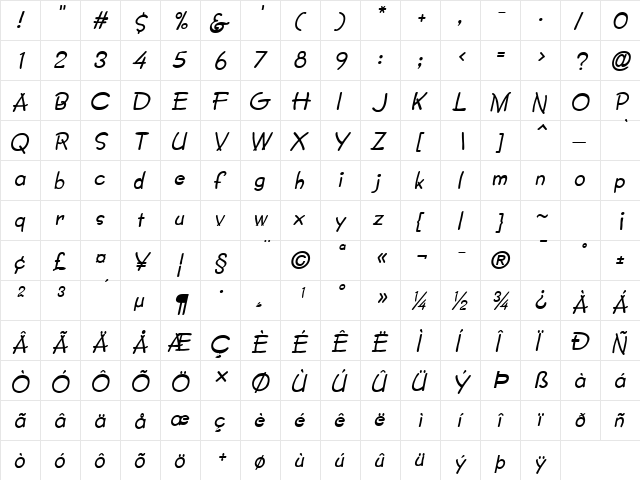
Crayon Italic
Design Context for Crayon Typeface
Crayon is a composed and adaptable typeface that performs quietly and consistently across a wide range of design contexts. The dynamic lean of this cut emphasises speed and emphasis in any layout.
Pro Tip: Try Crayon for annotation and caption copy alongside an upright companion — the contrast in angle creates a dynamic but ordered typographic system.